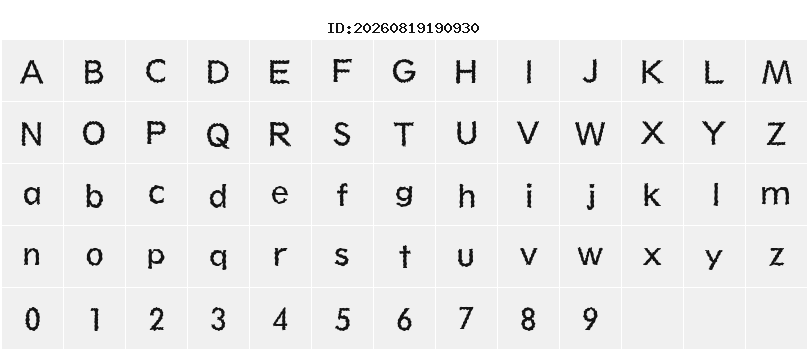
Shiver Preview
• Font Name: Shiver
• Full Font Name: Shiver
About Shiver.ttf
Shiver.ttf is a modern, elegant sans-serif font designed for ultimate readability and visual harmony. Perfect for branding, headlines, web design, and print materials.